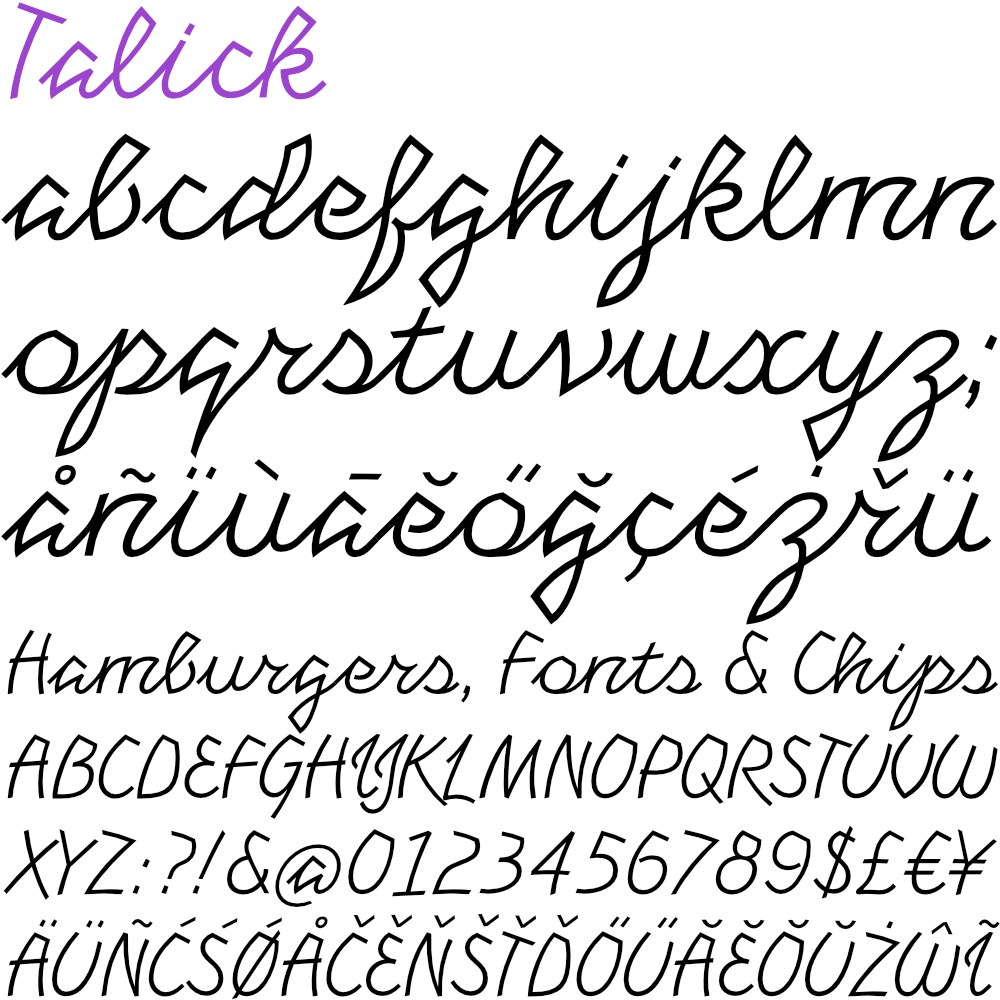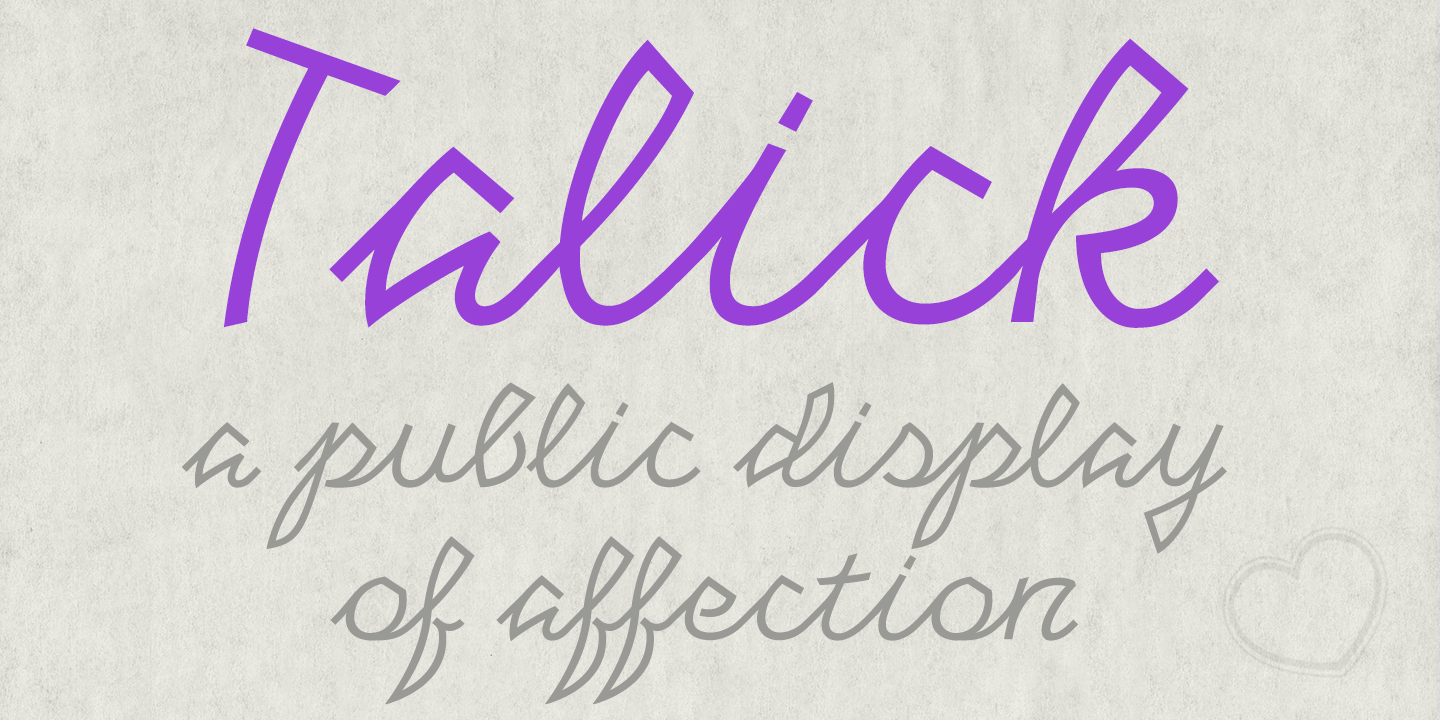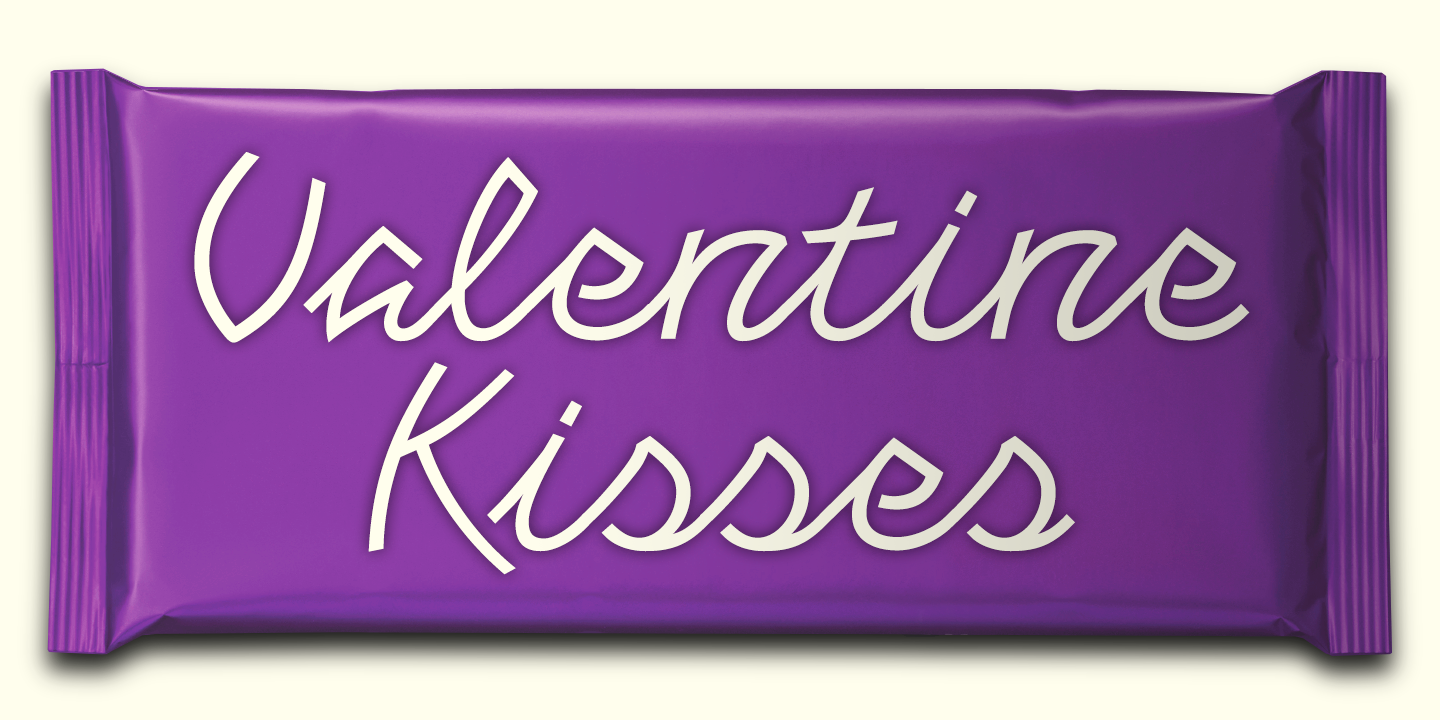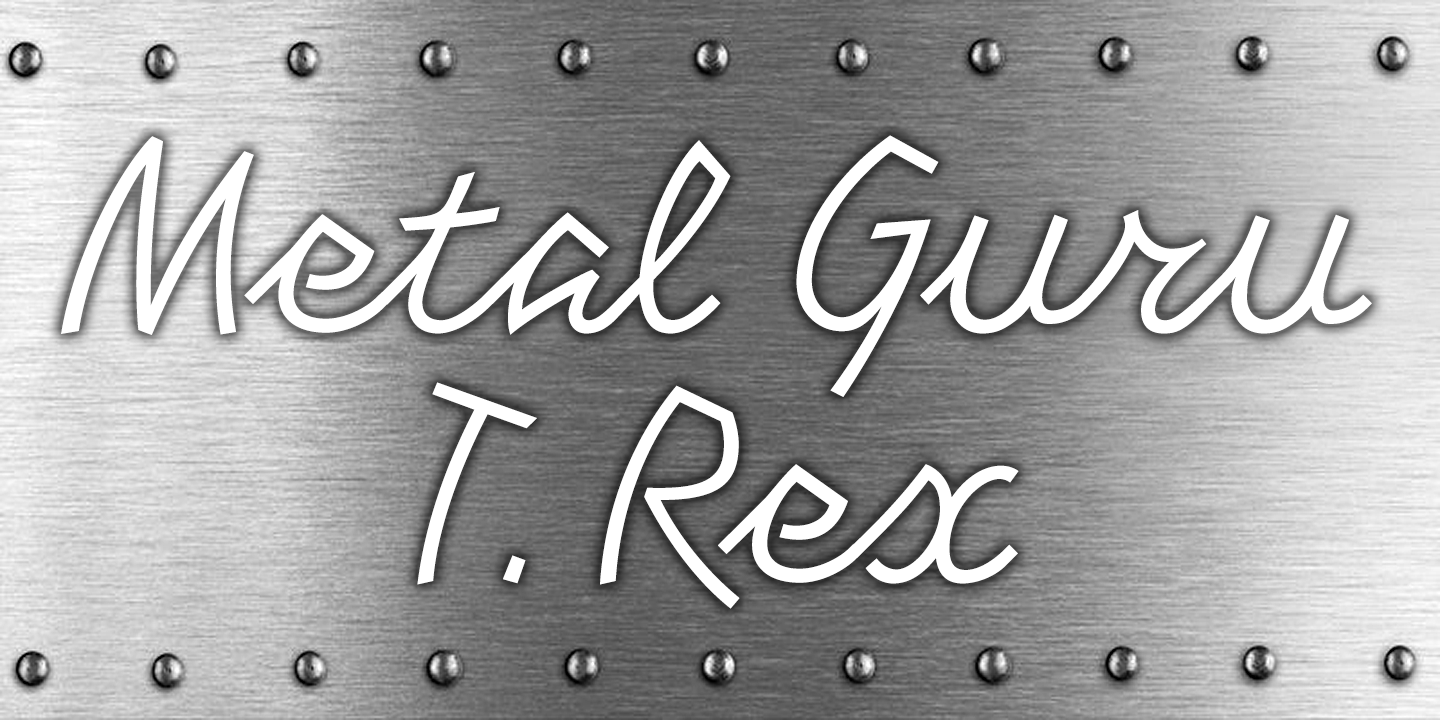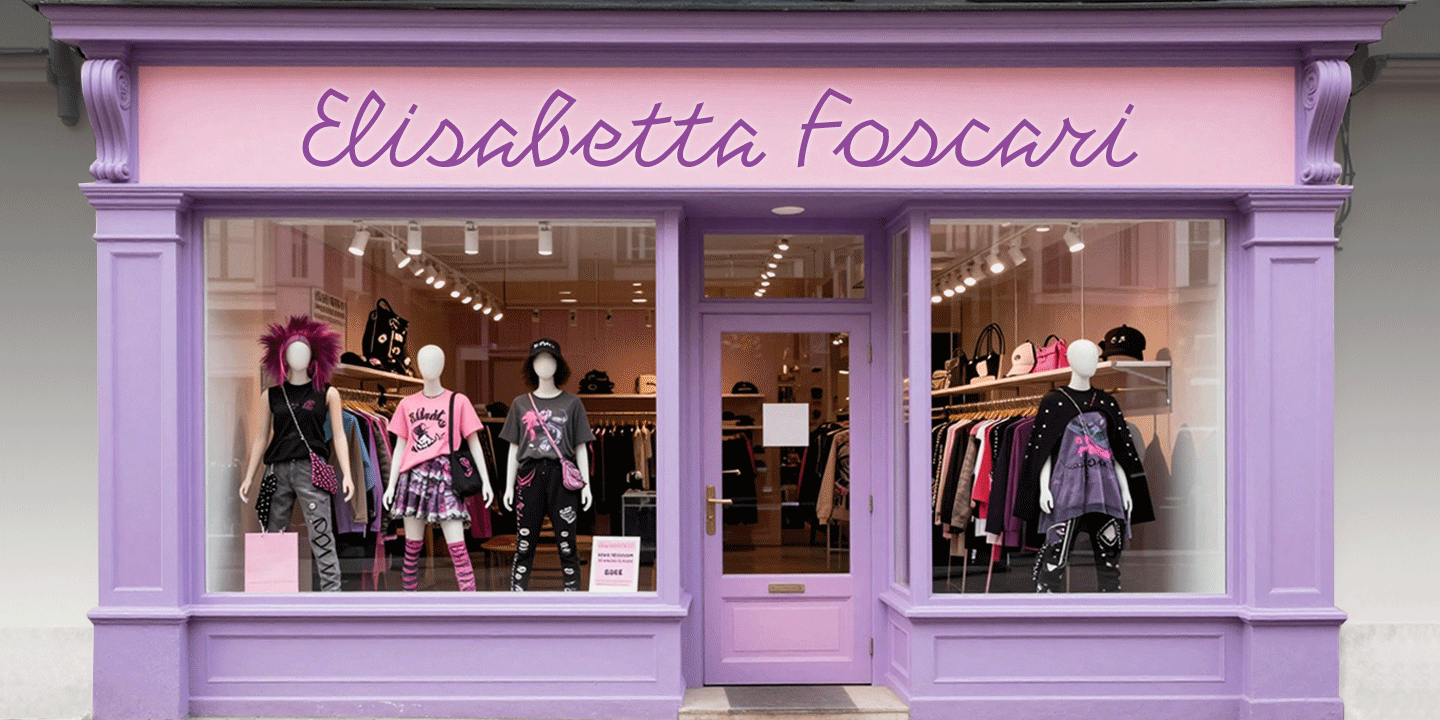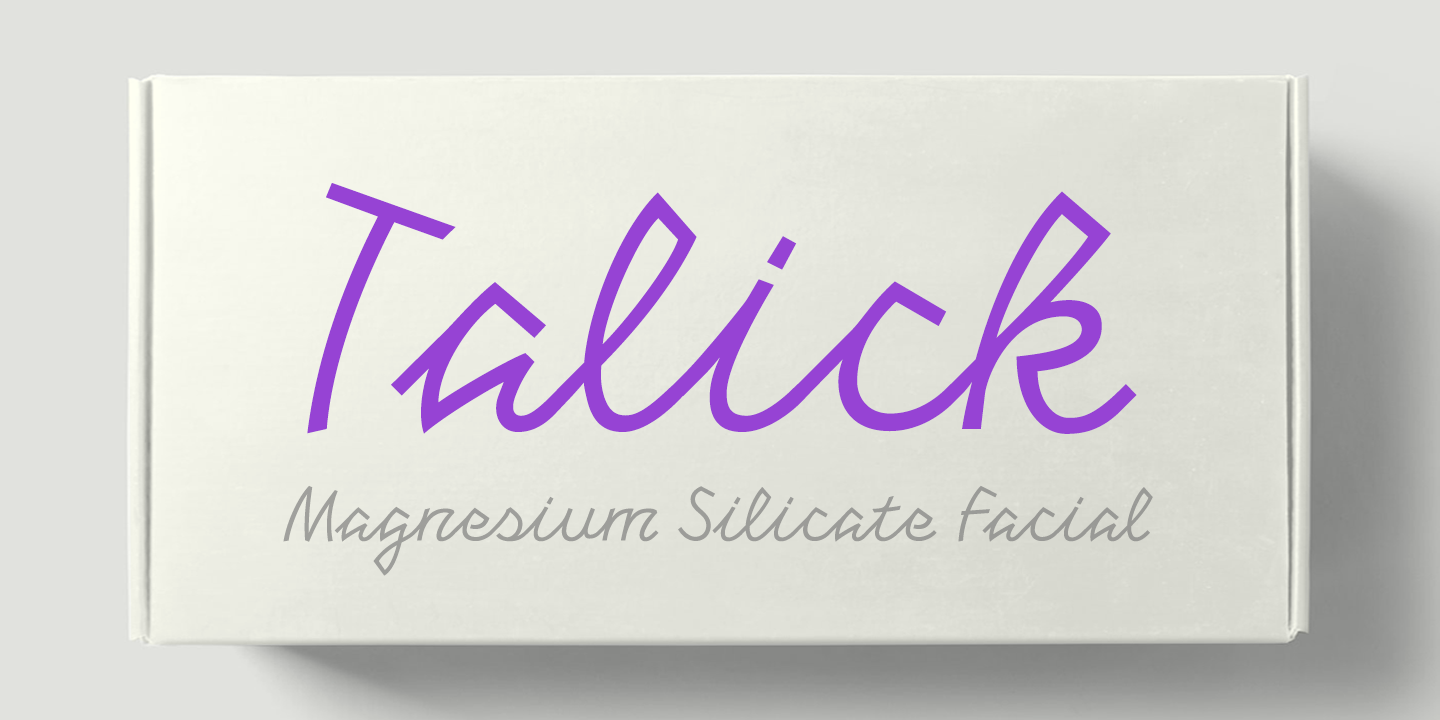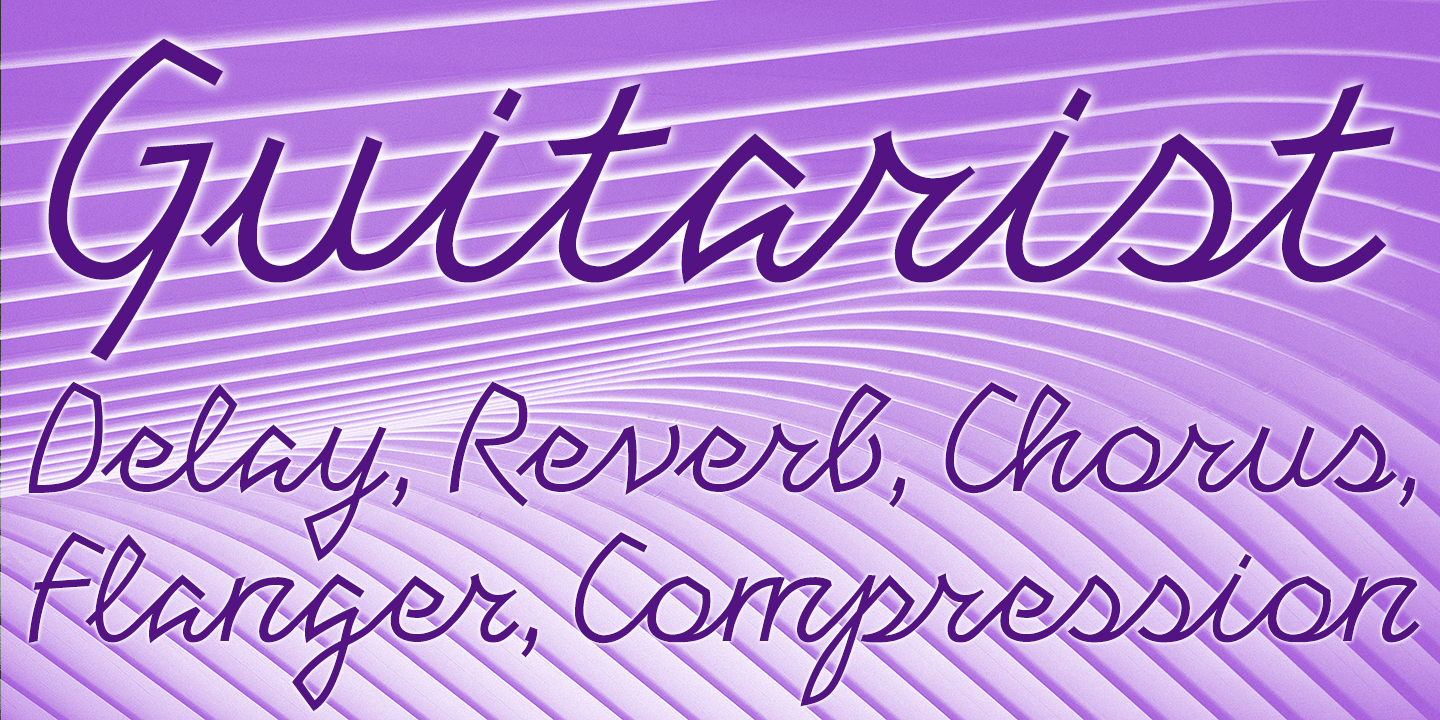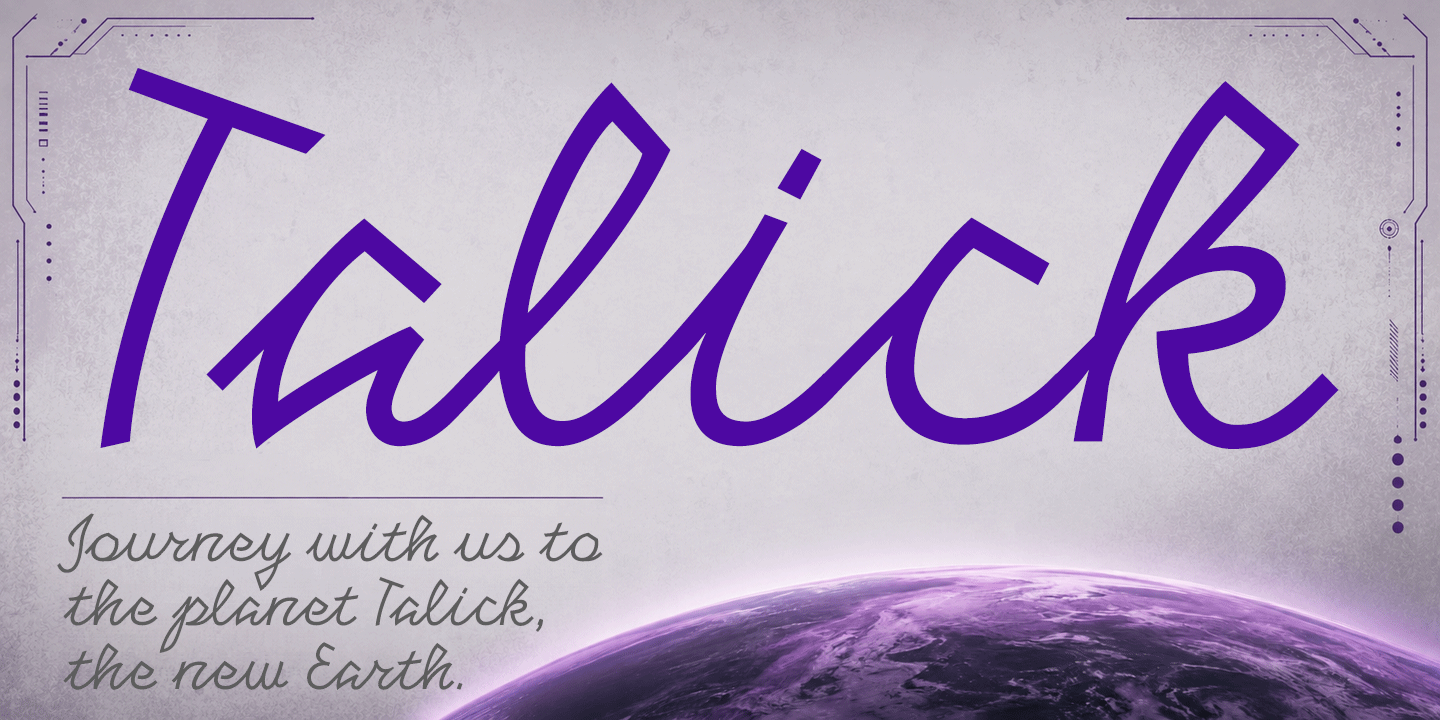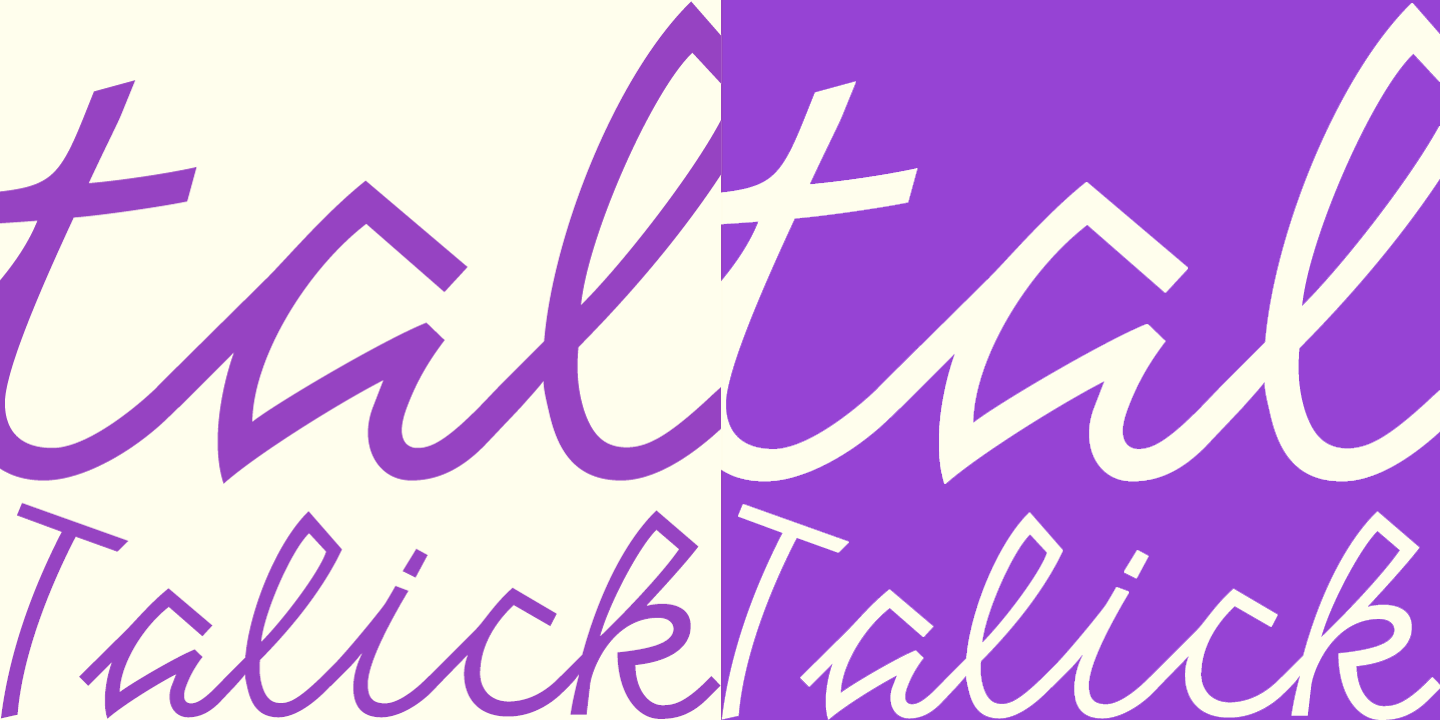
Talick
Talick is a monoline casual script with a perky, pointy personality. The font is cursive, most lowercase letters join up, a few caps too. Talick is designed to be used sentence case; the lowercase is paramount and the uppercase is understated, kept intentionally simple.
Talick might have the look of an old Italian shop sign, but there’s also something punkier and more contemporary about the unorthodox letterforms, something sharper, maverick and free-spirited. Envisaged usage includes: logo design, signage, branding, packaging, posters, banners, headings and titles.
A full complement of Latin Extended-A characters is included, and Talick is available free for personal use.